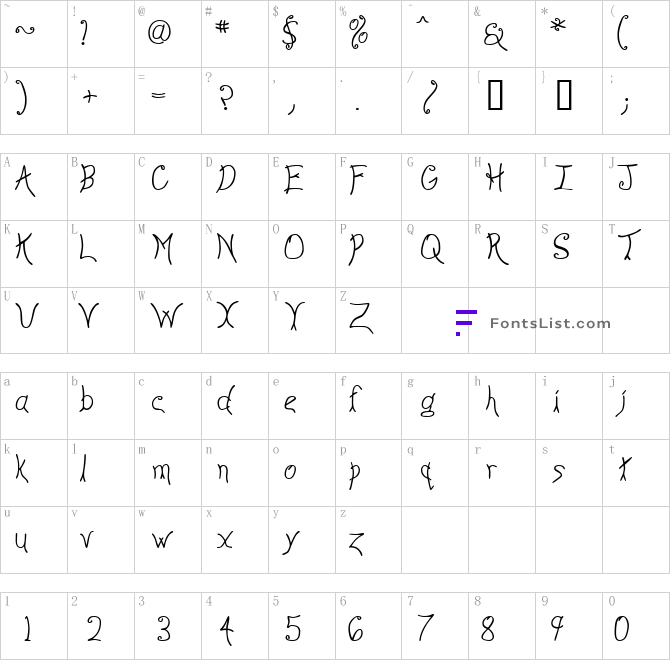
- Font Name:Anyway Light
Anyway-Light-copy-2-.ttf is a very beautiful artistic font, Anyway-Light-copy-2-.ttf is widely used in the design and printing of various books and pictures,Anyway-Light-copy-2-.ttf has a strong visual impact,Anyway-Light-copy-2-.ttf is a commonly used font in newspapers, magazines and books, and is used in posters, e-commerce Poster design, store design, logo design, font design and other fields.Anyway-Light-copy-2-.